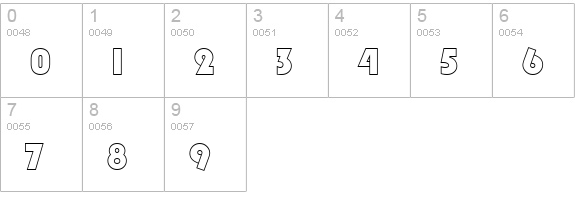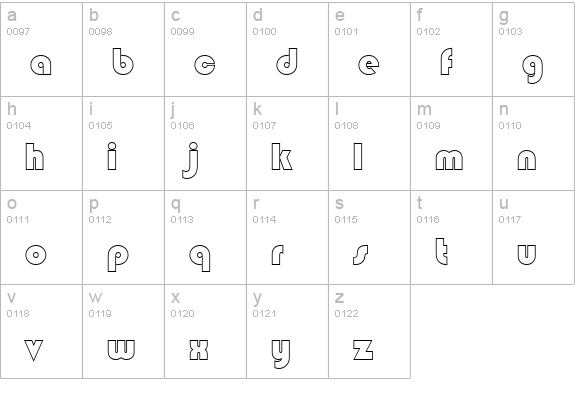
BlippoBlaOutP Font Details
BlippoBlaOutP font is a playful and energetic typeface that exudes a sense of fun and creativity. With its bold and rounded letterforms, this font is perfect for making a statement and catching the eye of your audience. Whether you're designing a poster, logo, or social media graphic, BlippoBlaOutP font will add a touch of whimsy to your project. The best part? BlippoBlaOutP font is available for free download at FontsMarket.com. This means you can easily access this unique and eye-catching font to elevate your designs without breaking the bank. Don't miss out on the opportunity to add BlippoBlaOutP font to your font library today and unleash your creativity with this dynamic typeface.